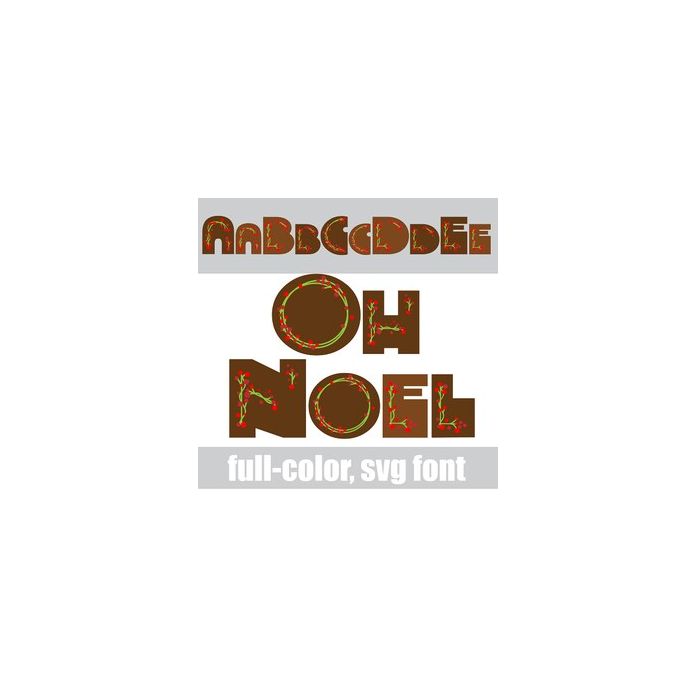
This full-color font features chunky, modern lettering and holidays holly. There is an alt case w/ additional colors you can access through your system or Silhouette's glyph map.